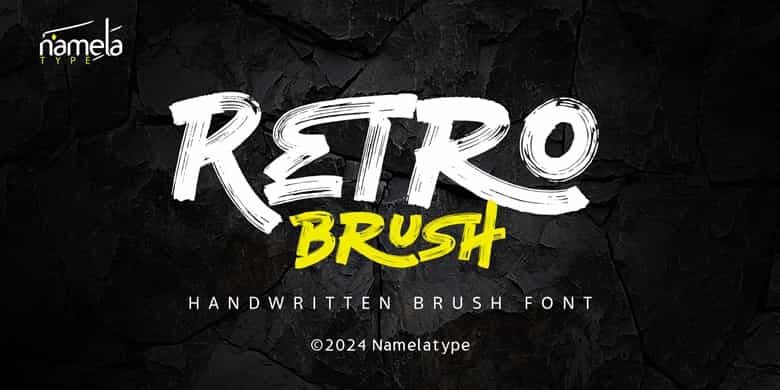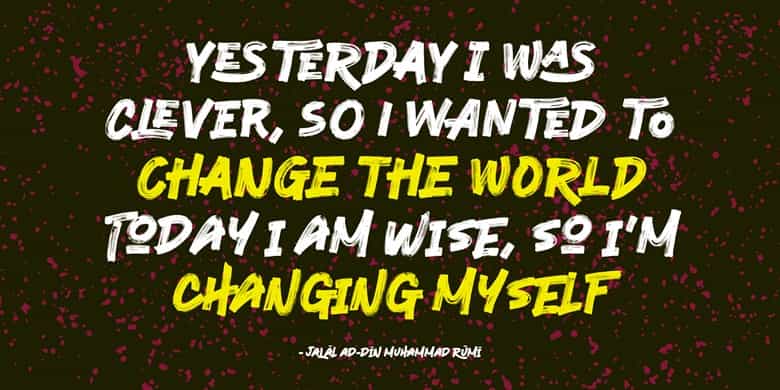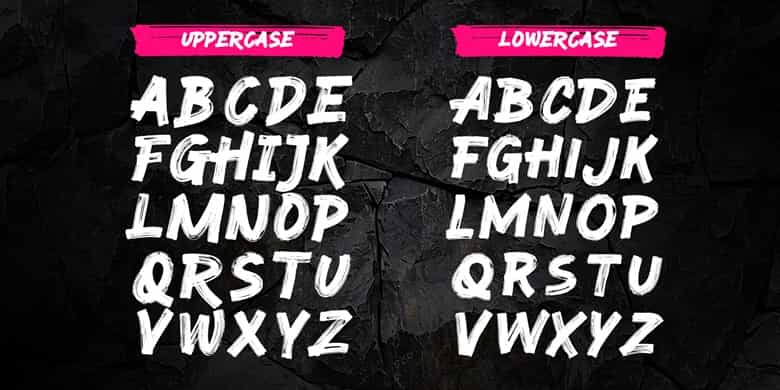
Retro Brush is a handwritten brush script font that has taken its characteristic feel from classy designs and has depicted the dry brush stroke style. This seemingly technical approach to typography is beautiful and graceful, and makes the typeface blend and flow well in any project.